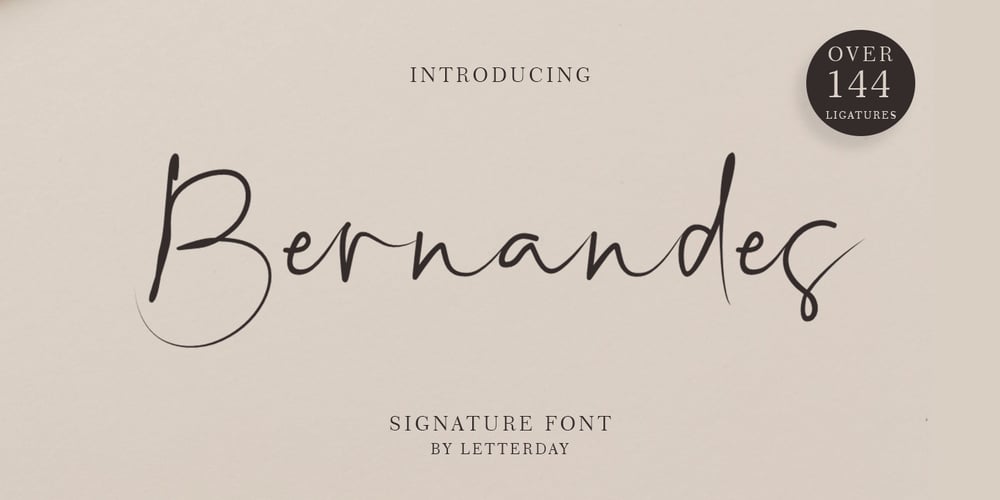
Bernandes Font Family was designed by Agus Fajir and published by Letterday Studio. Bernandes contains 1 styles and family package options. Bernandes is a new modern script font with an irregular base line. Trendy and feminine style. Bernandes looks beautiful in wedding invitations, thank you cards, quotes, greeting cards, logos, business cards, and more. Perfect for use in ink or watercolors. Includes initial and terminal letters, alternatives and support for many languages.To enable the OpenType Stylistic alternative, you need a program that supports OpenType features such as Adobe Illustrator CS, Adobe Indesign & CorelDraw X6-X7, Microsoft Word 2010 or newer versions. There are additional ways to access alternatives / swashes, using Character Maps (Windows), Nexus Fonts (Windows), Font Books (Mac) or software programs such as PopChar (for Windows and Mac).